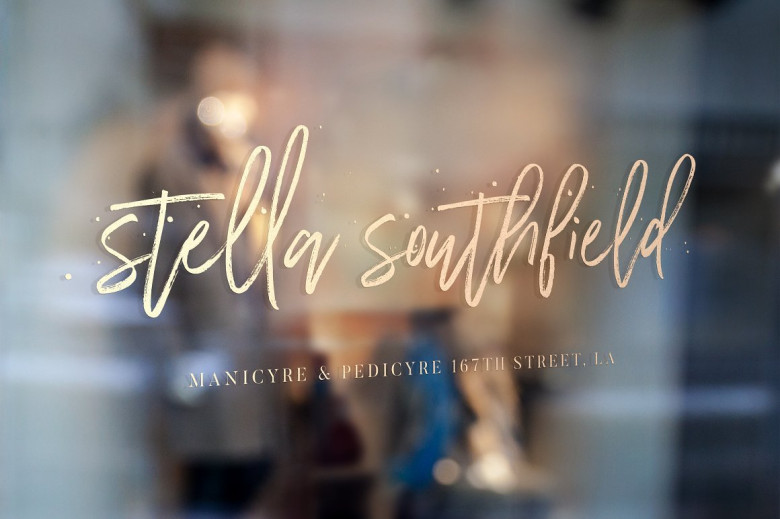
Wilderness Brush Font
Are you implementing a design project, and are looking for a brush type? Introducing Wilderness Brush Font! Wilderness Brush designed by Mats-Peter Forss. Wilderness Typeface is a new funky hand lettered font made with Tombow Fudesunoke brush pen. It’s authentically handlettered font with lowercase alternates. Designed to work perfectly in multiple designs like wedding invitations, website logos, Instagram posts and many many more.